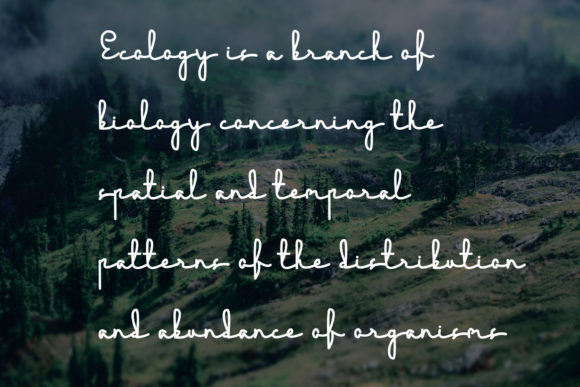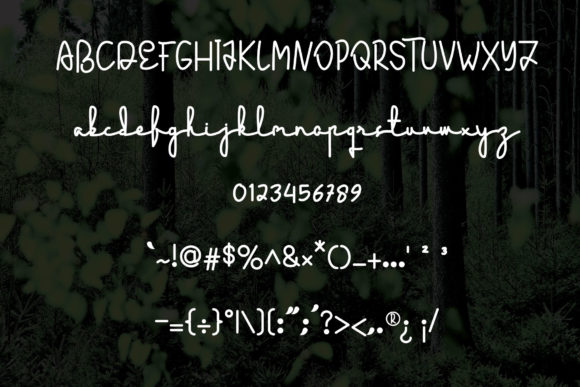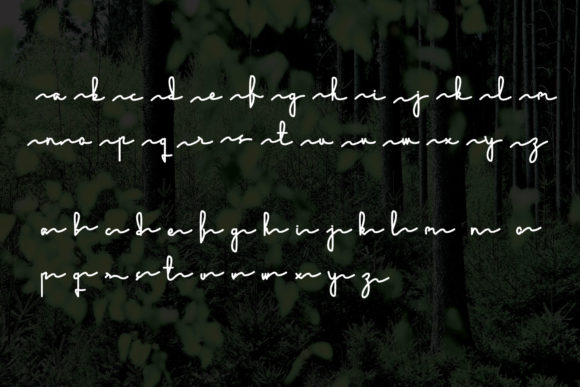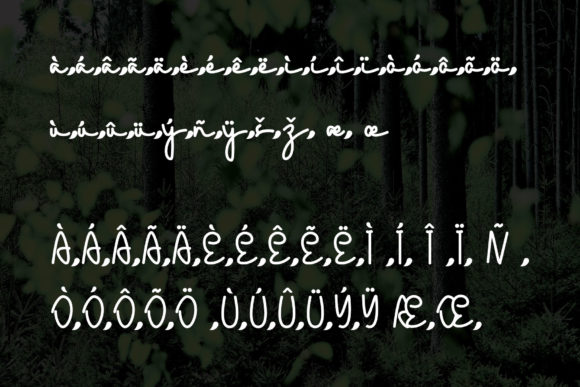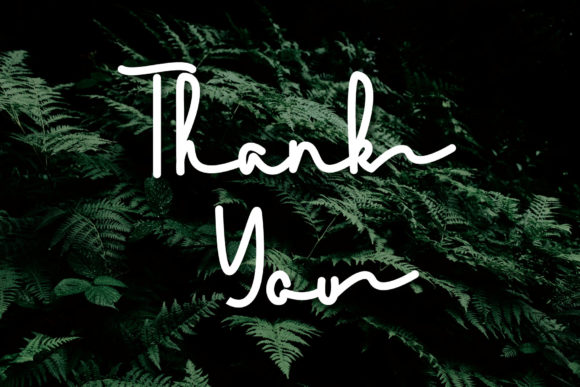
Ecology Font: Elevate Your Designs with a Minimal and Flowing Handwritten Style
Are you tired of using the same old fonts in your designs? Do you want to add a touch of elegance and sophistication to your creative projects? Look no further than the Ecology Font, a minimal and flowing handwritten font that is incredibly versatile and perfect for a wide range of designs.
What is Ecology Font?
Ecology Font is a beautifully crafted handwritten font that is designed to elevate your designs to the highest levels. Its minimal and flowing style makes it perfect for a variety of creative projects, from branding and advertising to packaging and digital media. Whether you’re a designer, crafty DIY enthusiast, or simply someone who loves to create, Ecology Font is a must-have addition to your font collection.
Key Features of Ecology Font
- Minimal and Flowing Style: Ecology Font features a beautiful, flowing handwritten style that is both elegant and sophisticated.
- Incredibly Versatile: This font is perfect for a wide range of designs, from modern and minimalist to vintage and rustic.
- PUA Encoded: Ecology Font is PUA encoded, which means you can access all of the glyphs and swashes with ease.
How to Use Ecology Font in Your Designs
Ecology Font is incredibly easy to use and can be incorporated into a wide range of designs. Here are a few ideas to get you started:
- Branding and Advertising: Use Ecology Font to create stunning logos, business cards, and advertising materials that will help your brand stand out.
- Packaging Design: Add a touch of elegance to your product packaging with Ecology Font, perfect for food, beauty, and lifestyle products.
- Digital Media: Use Ecology Font to create engaging social media graphics, blog posts, and website content that will captivate your audience.
- Crafting and DIY Projects: Add a personal touch to your crafty projects, such as handmade cards, invitations, and scrapbooking pages.
Benefits of Using Ecology Font
There are many benefits to using Ecology Font in your designs. Here are a few:
- Unique and Eye-Catching: Ecology Font is a unique and eye-catching font that will help your designs stand out from the crowd.
- Highly Versatile: This font can be used in a wide range of designs, making it a valuable addition to your font collection.
- Easy to Read: Ecology Font is highly legible, making it perfect for body text and headlines.
- Professional and Sophisticated: This font has a professional and sophisticated feel, making it perfect for branding and advertising materials.
Tips and Tricks for Getting the Most Out of Ecology Font
Here are a few tips and tricks for getting the most out of Ecology Font:
- Experiment with Different Sizes and Colors: Try out different sizes and colors to see what works best for your design.
- Pair with Other Fonts: Ecology Font pairs well with other fonts, so don’t be afraid to experiment with different combinations.
- Use Swashes and Glyphs: Take advantage of the PUA encoding and use the swashes and glyphs to add extra flair to your designs.